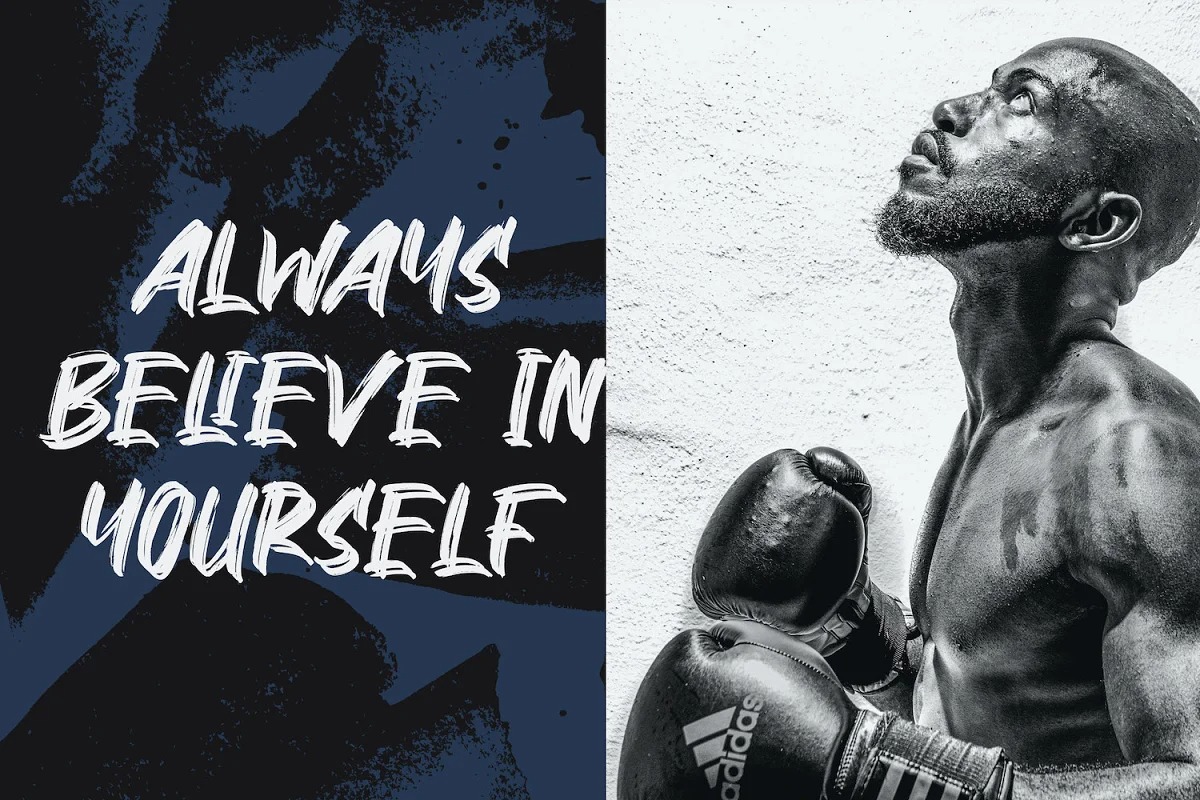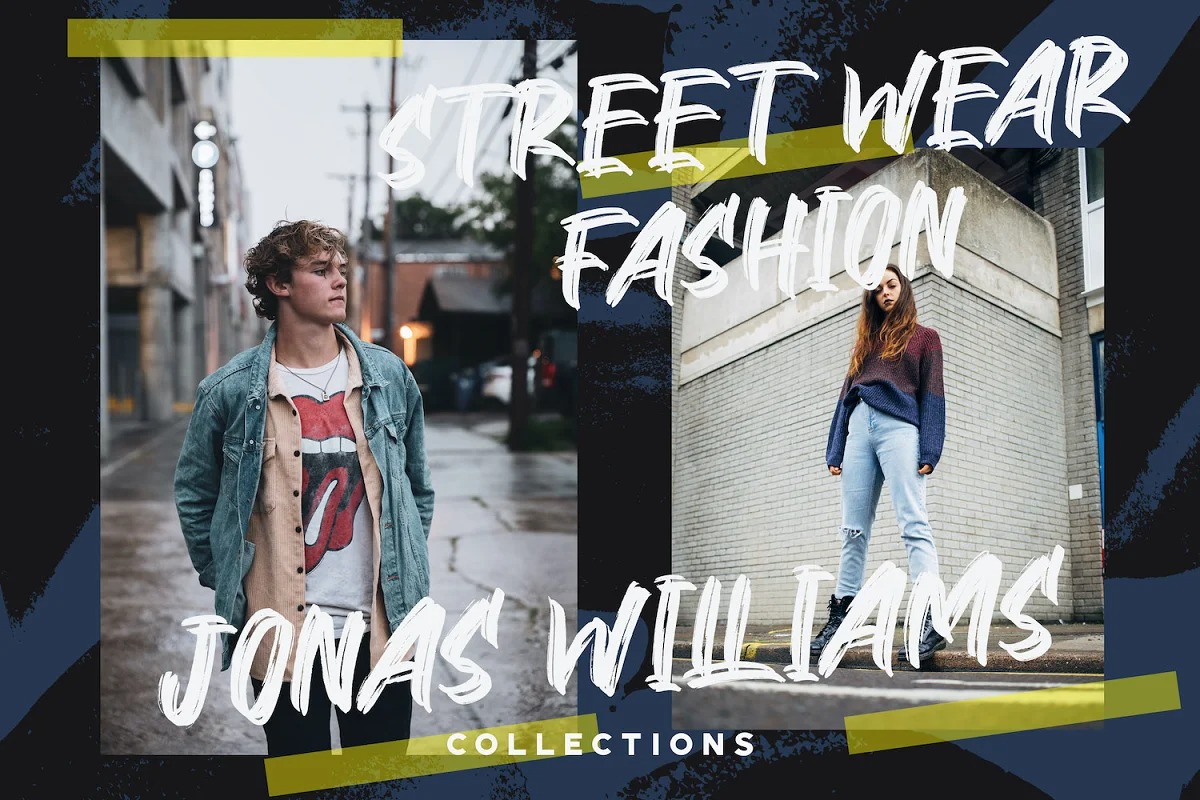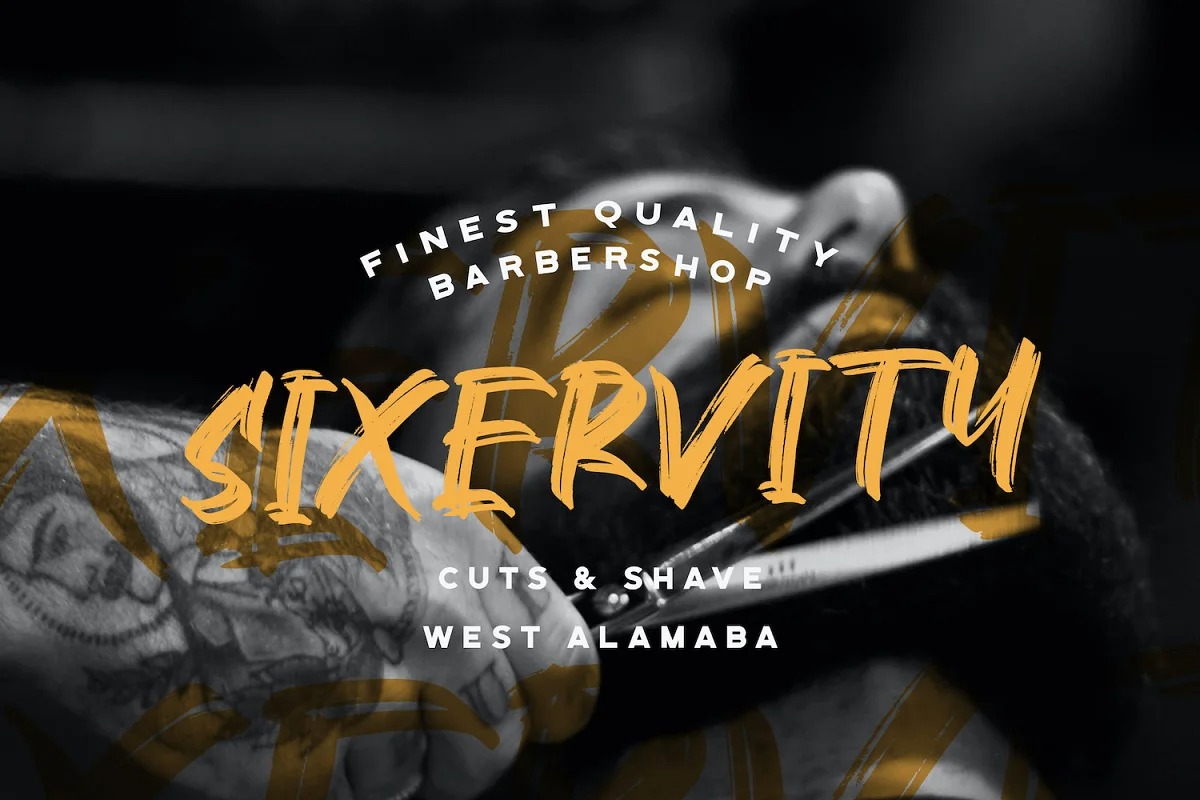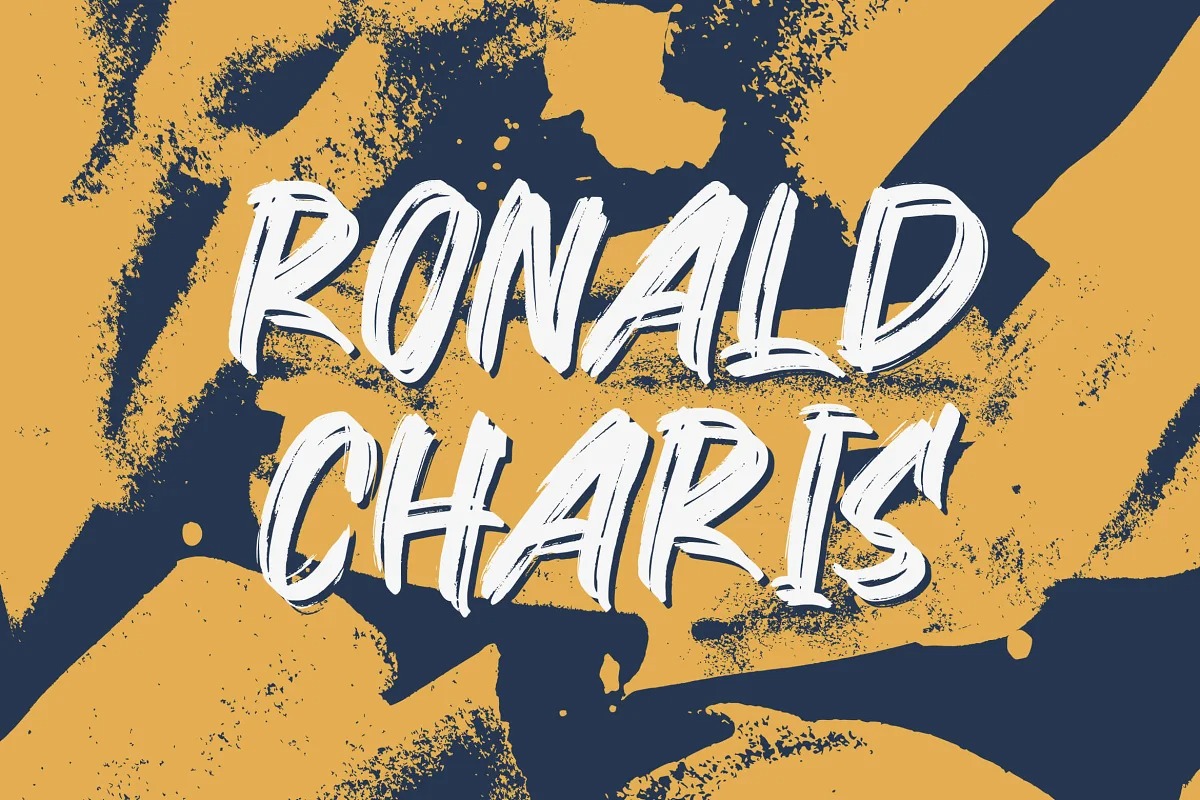
Ronald Charis Brush Font
It’s a summer scirpt brush font. Made from font designer named StringLabs. It’s a carefree, summer vibe, casual vibe, and free-spirited brush dispaly font perfect for creating beautiful design! Ronald Charis perfect for poster, logo, book covers, tshirt designs, packaging and more.